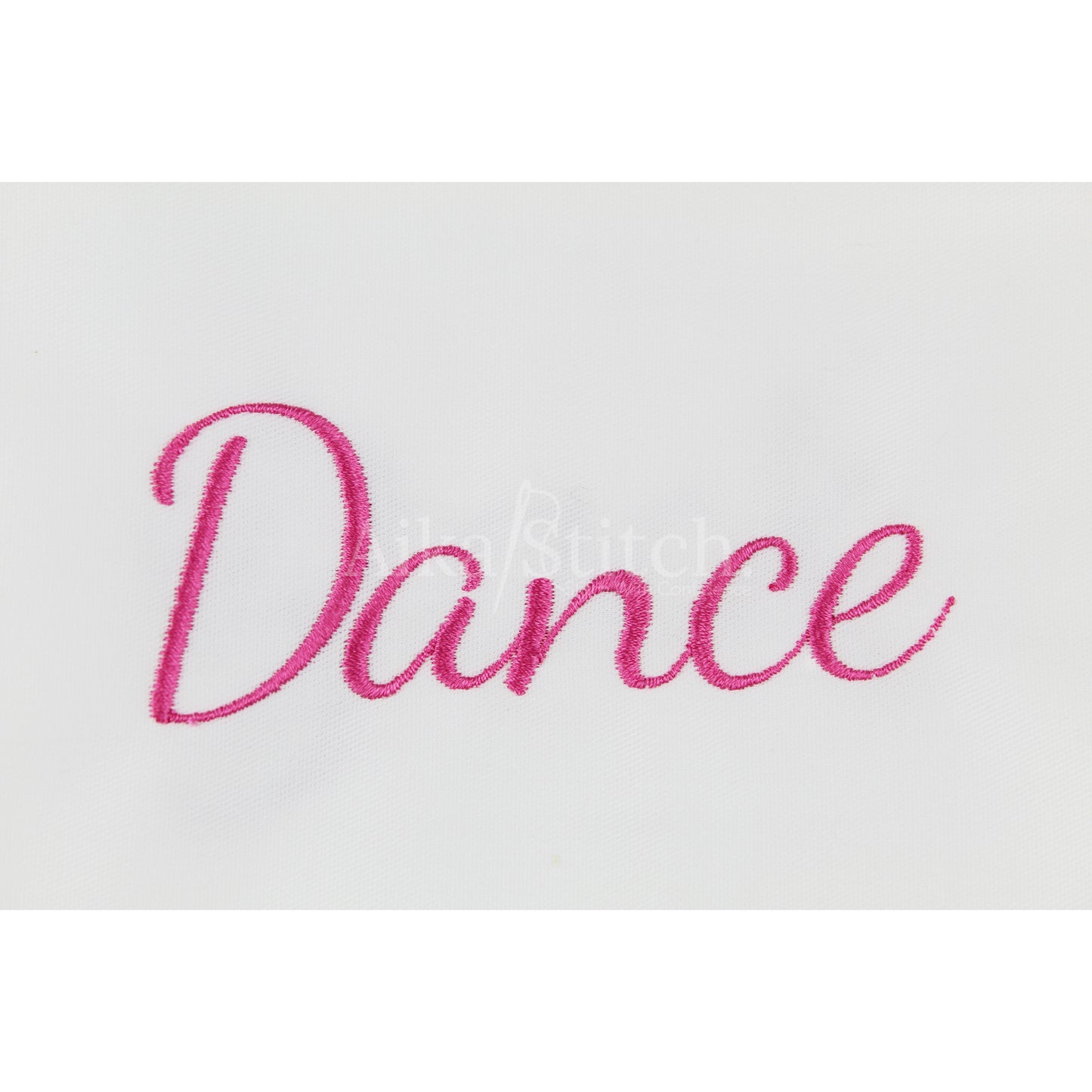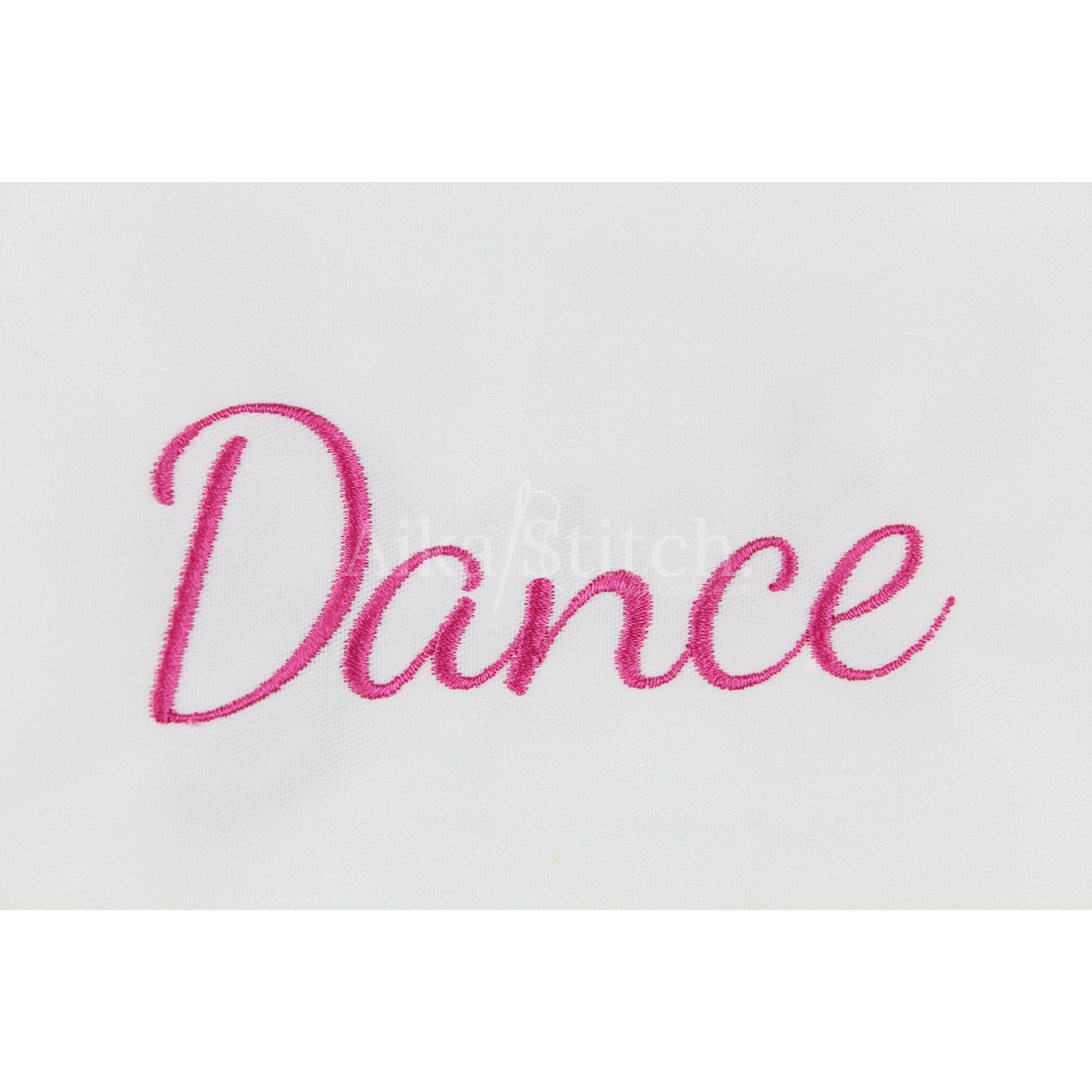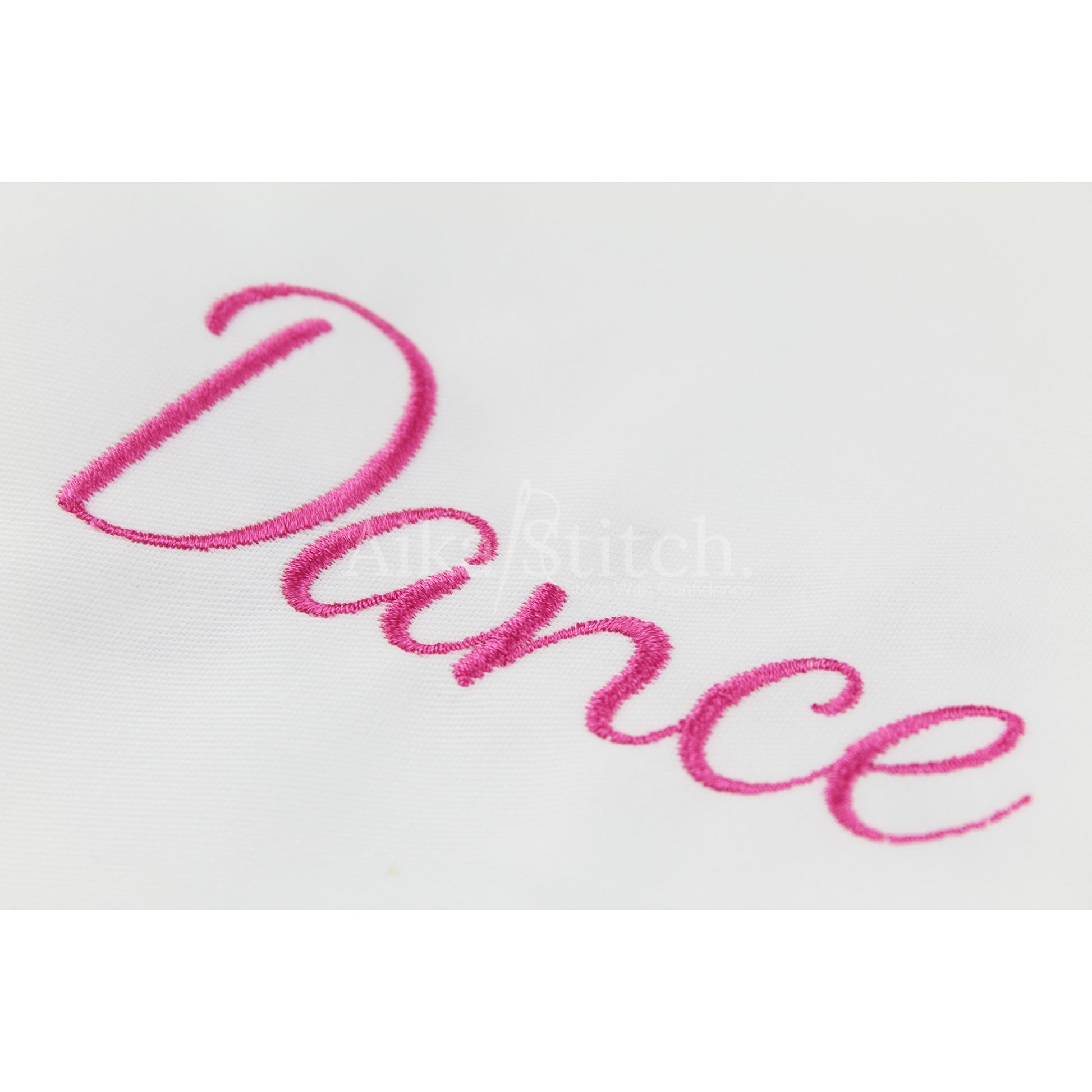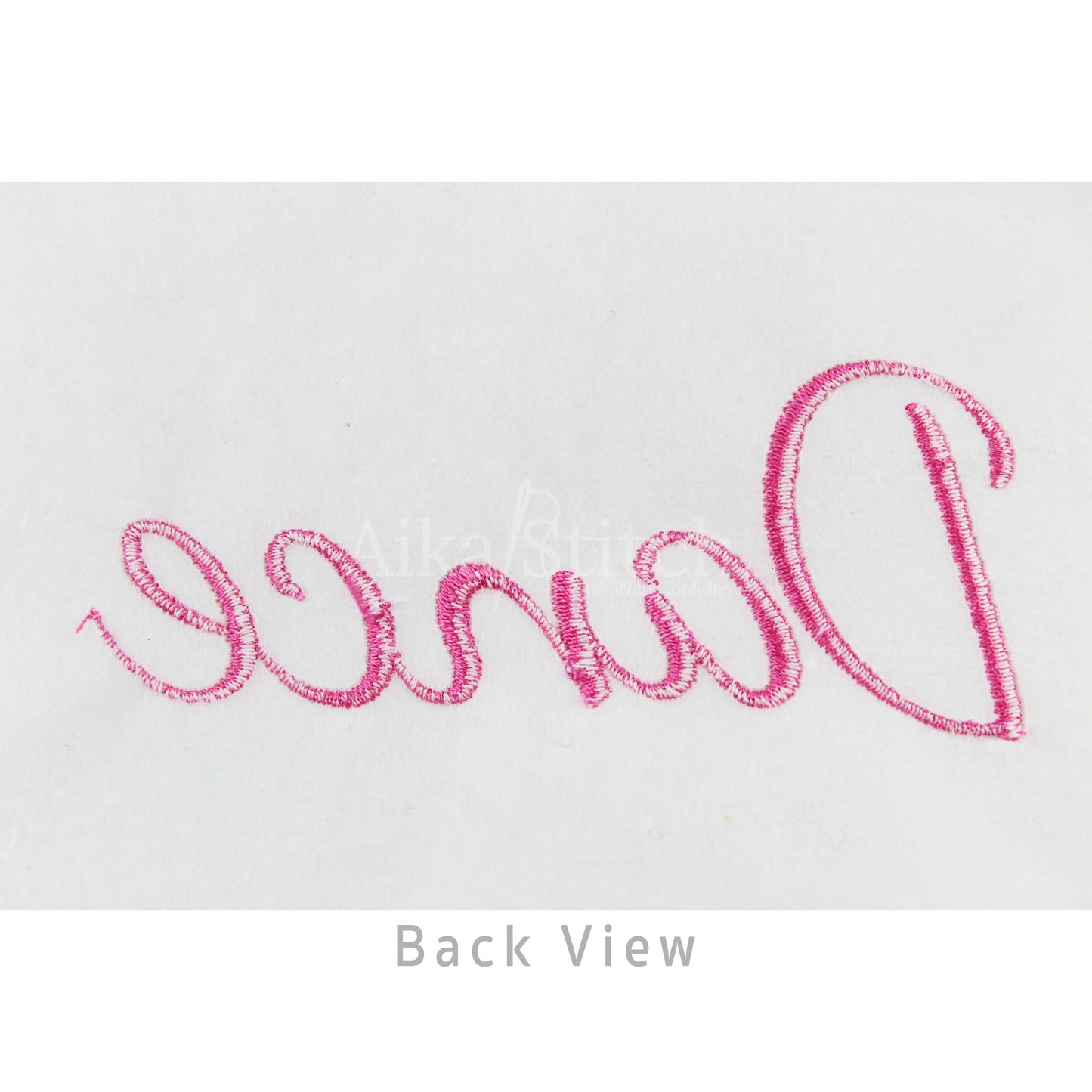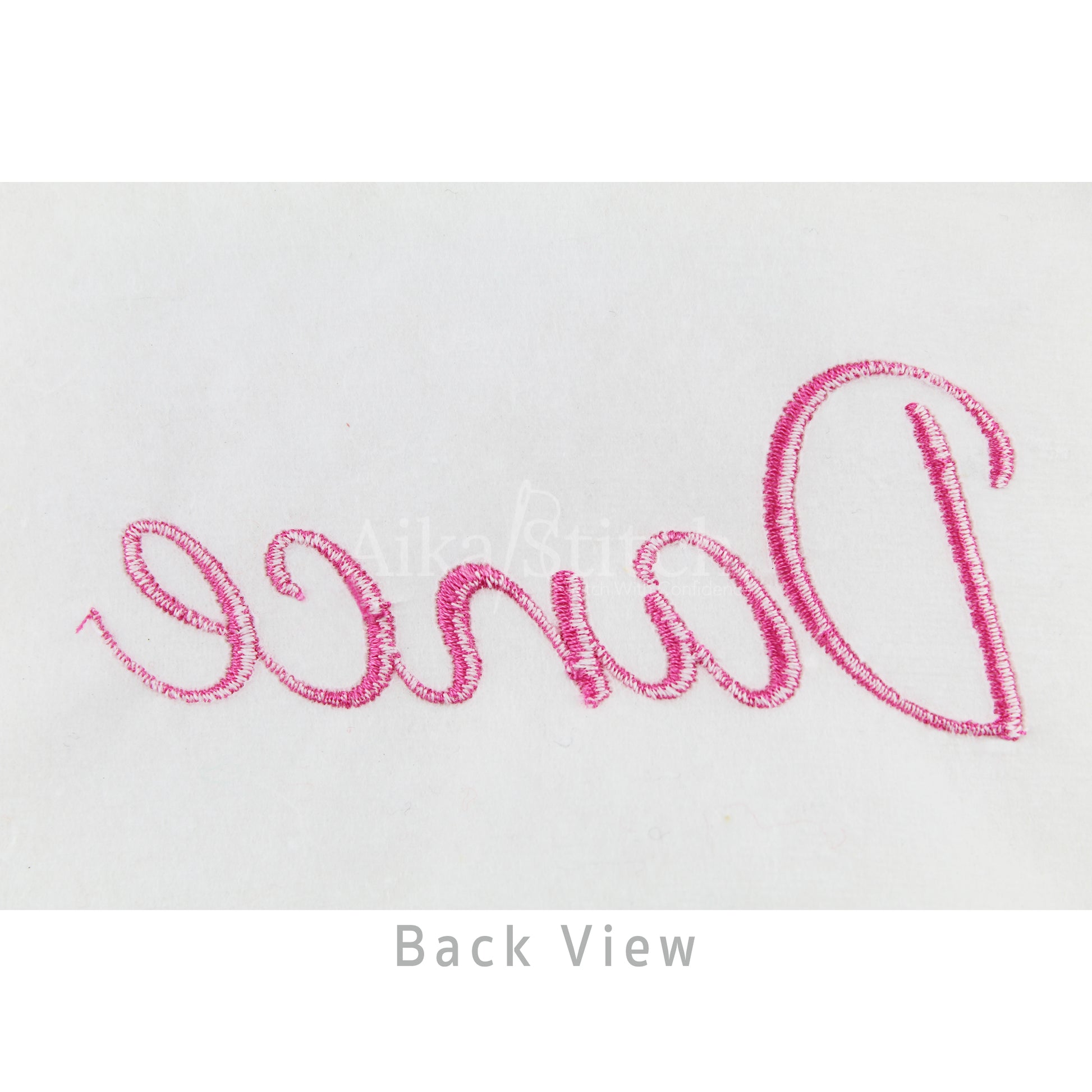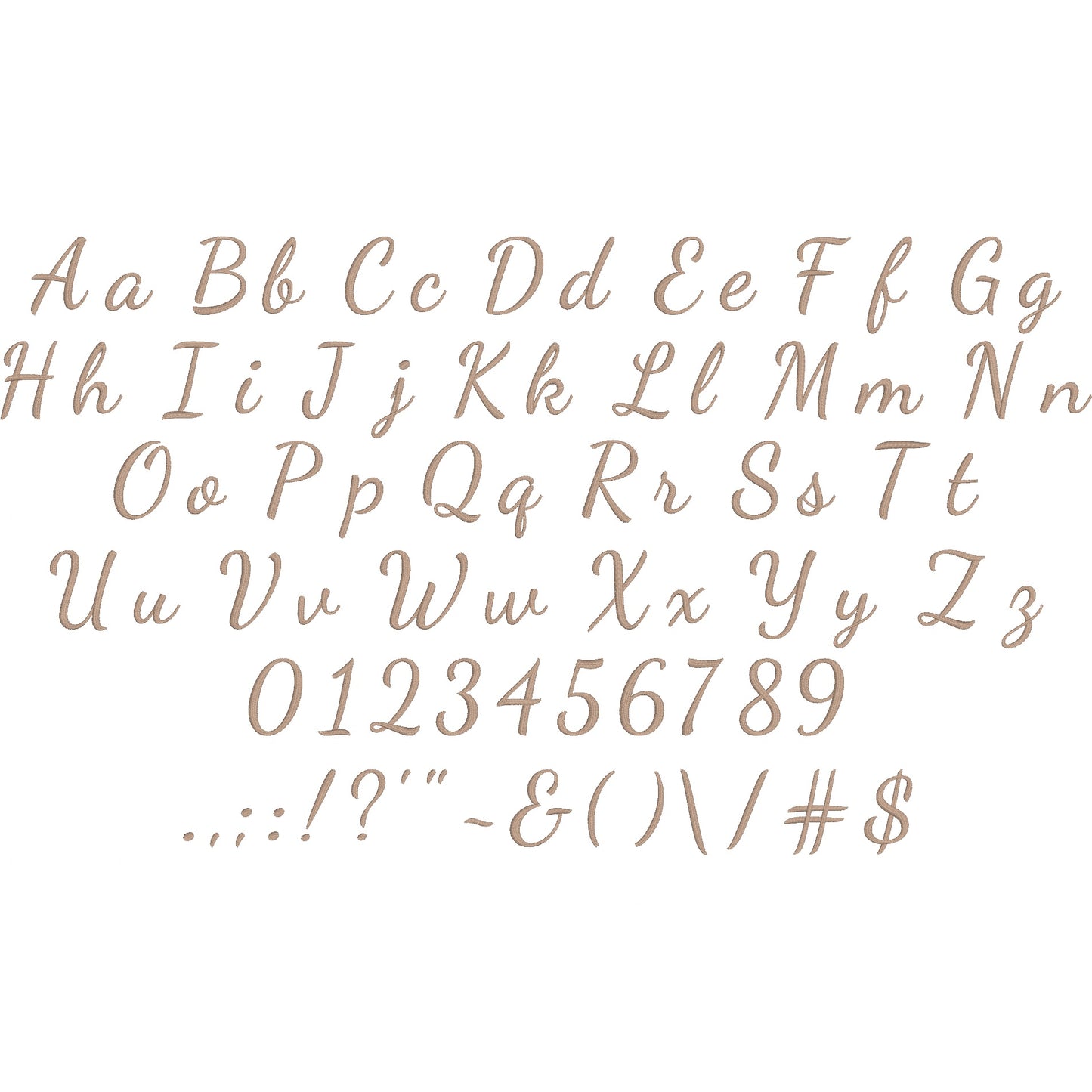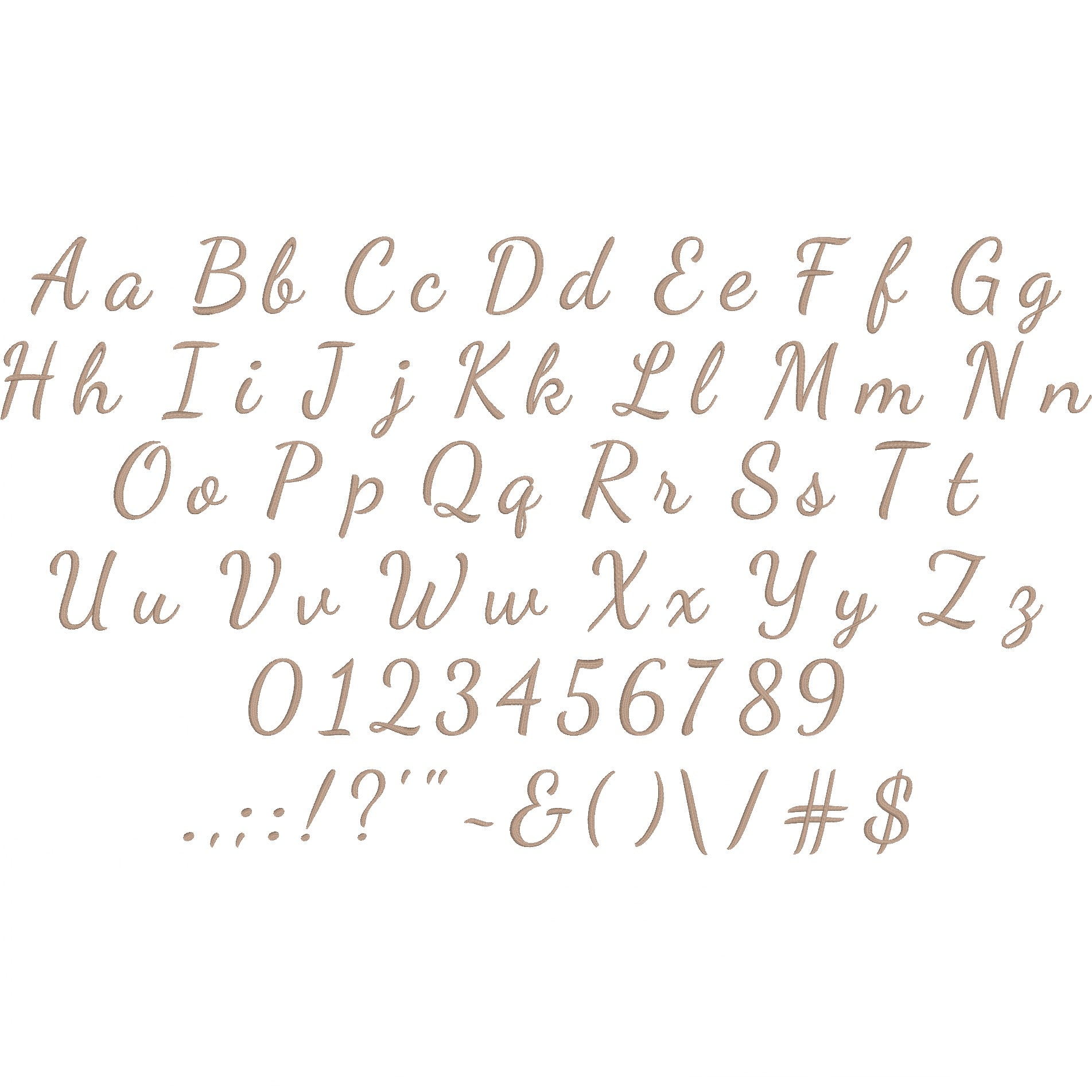
Dance Script Calligraphy Embroidery Font
Dance is a Script Calligraphy machine embroidery font featuring beautiful satin stitch lettering. Perfect for shirts, towels, hats, baby gifts, monograms, and small business embroidery projects.